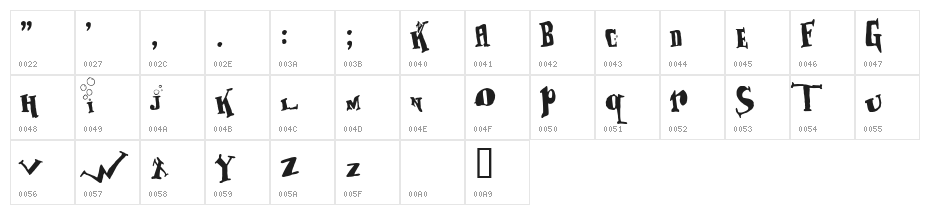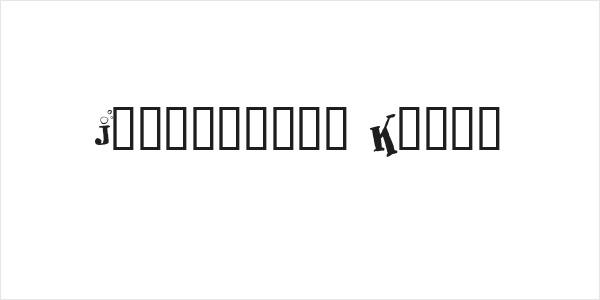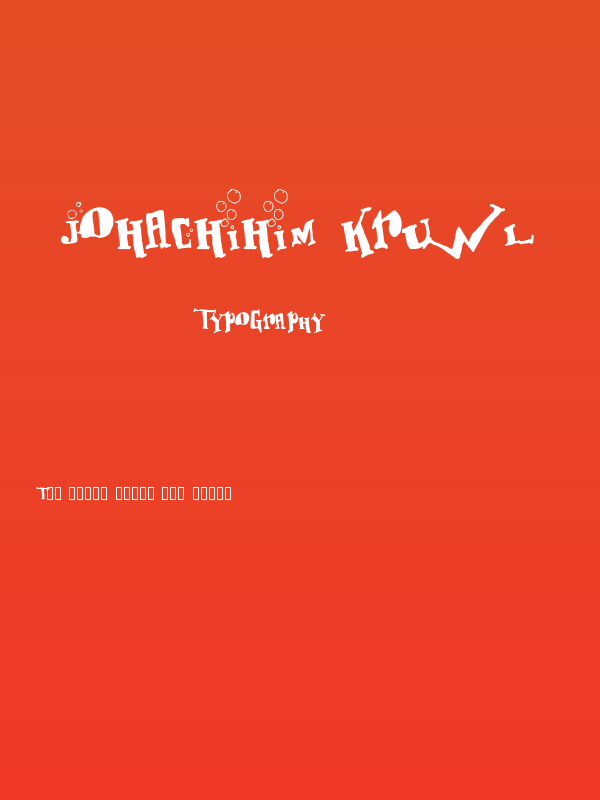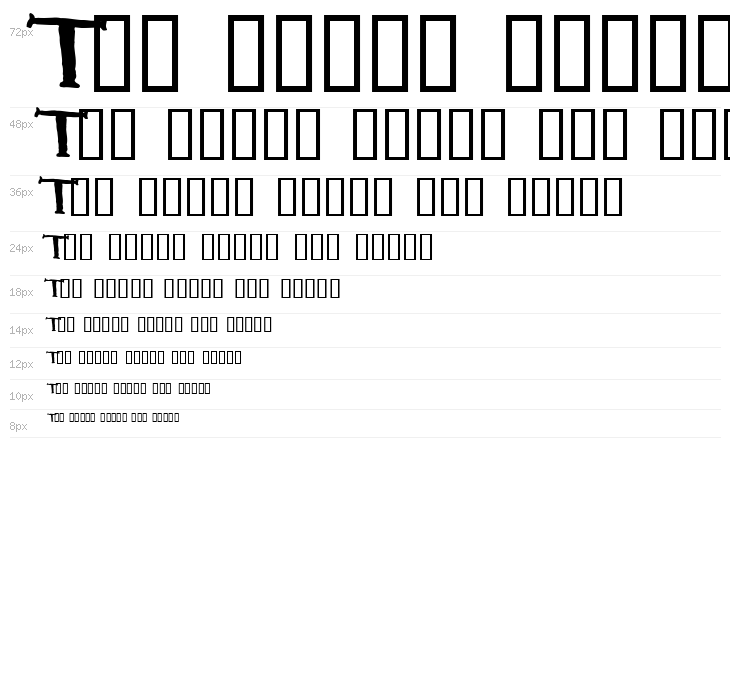
Johachihim Kruwl Font
Johachihim Kruwl Description
This font features a whimsical and playful design, characterized by its irregular and varied letterforms. Each character appears to have a unique personality, with some letters incorporating playful elements like bubbles or exaggerated serifs. The overall style is reminiscent of a hand-drawn or cartoonish aesthetic, making it stand out with its quirky and artistic flair. The uppercase and lowercase letters maintain this playful theme, with a mix of bold and thin strokes adding to the dynamic appearance. This font is ideal for projects that require a fun, informal, and creative touch.
| Proposed Projects | Ideal for children's books, playful branding, party invitations, or any creative project that benefits from a fun and informal style. |